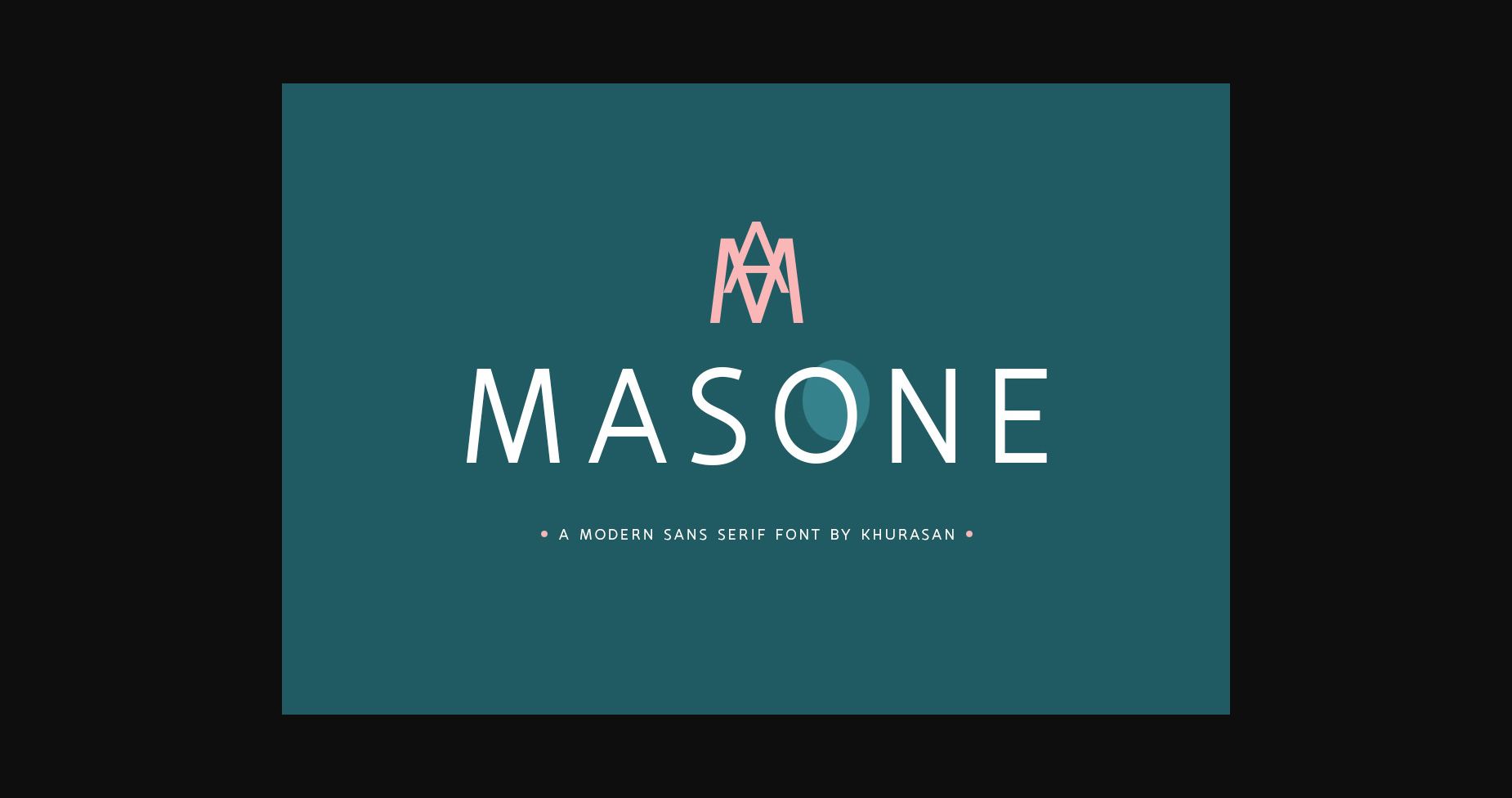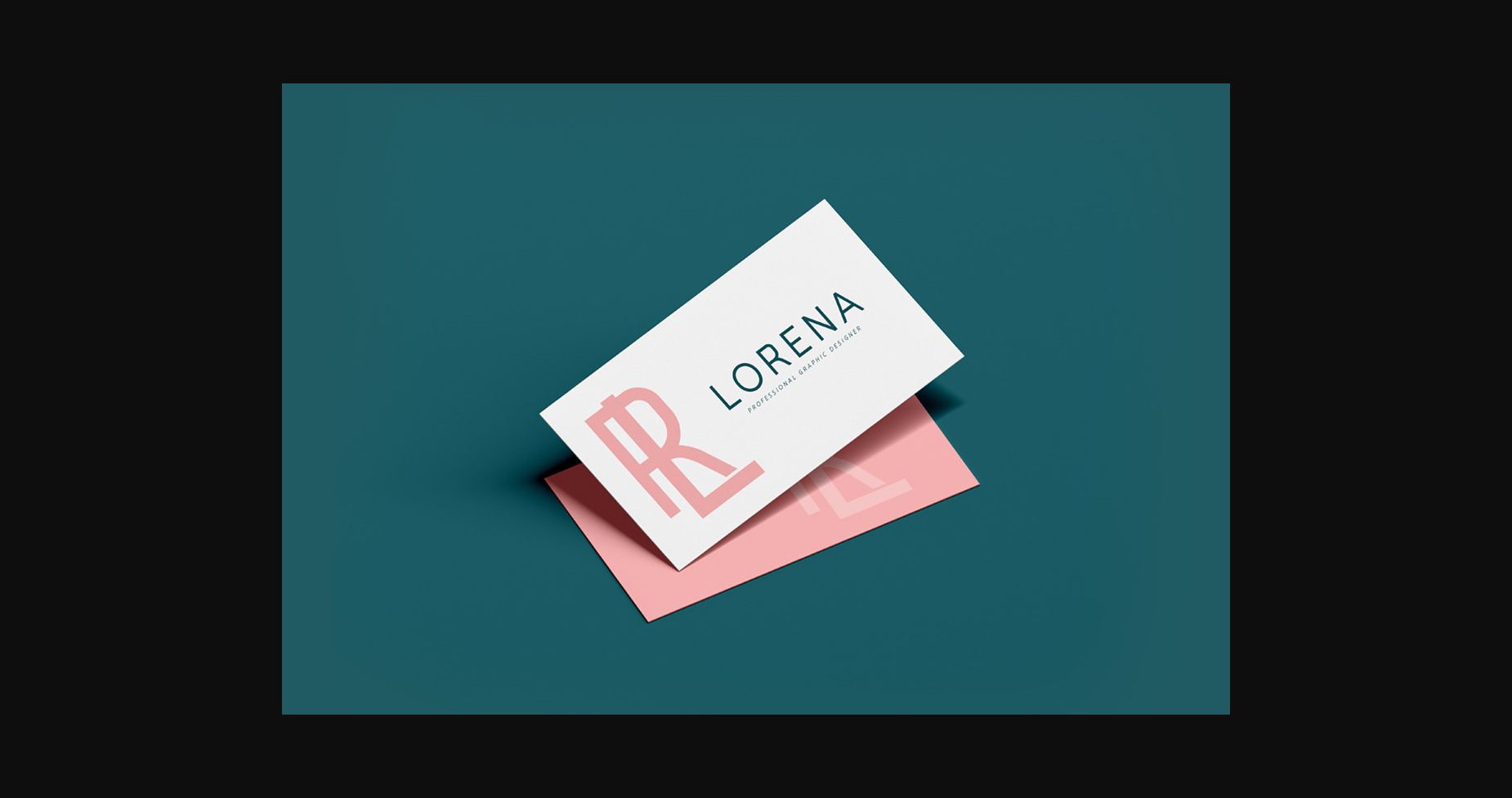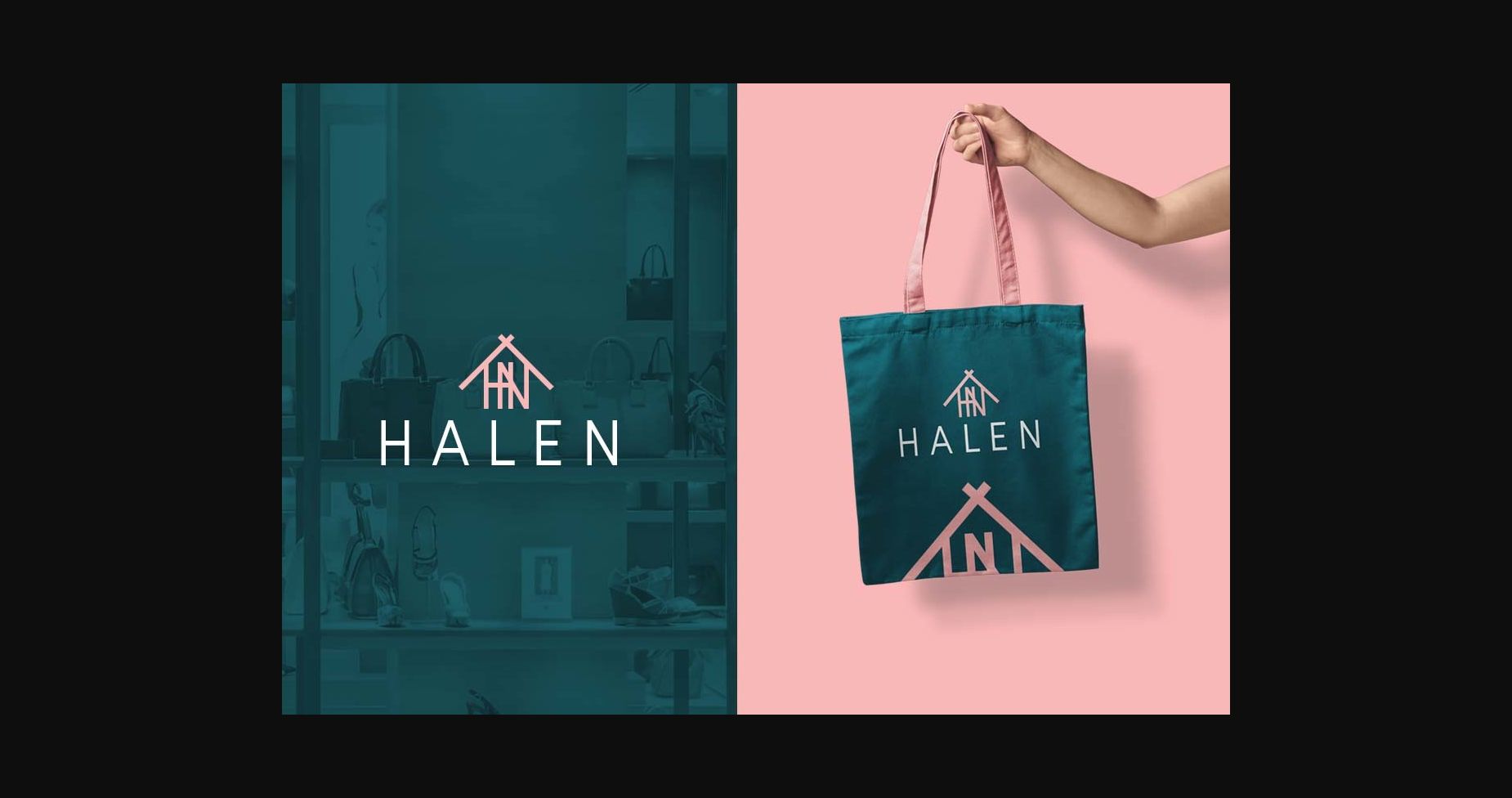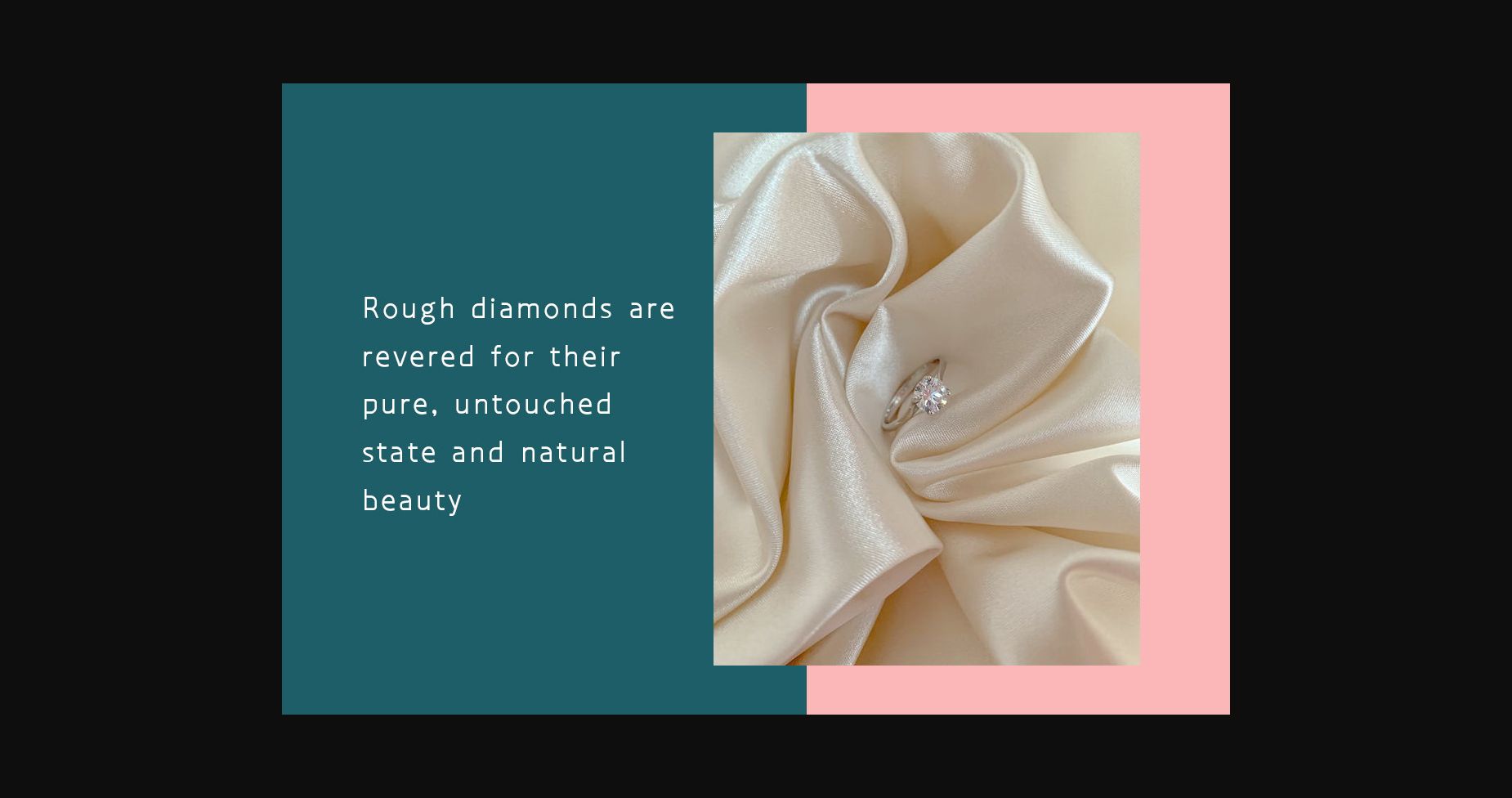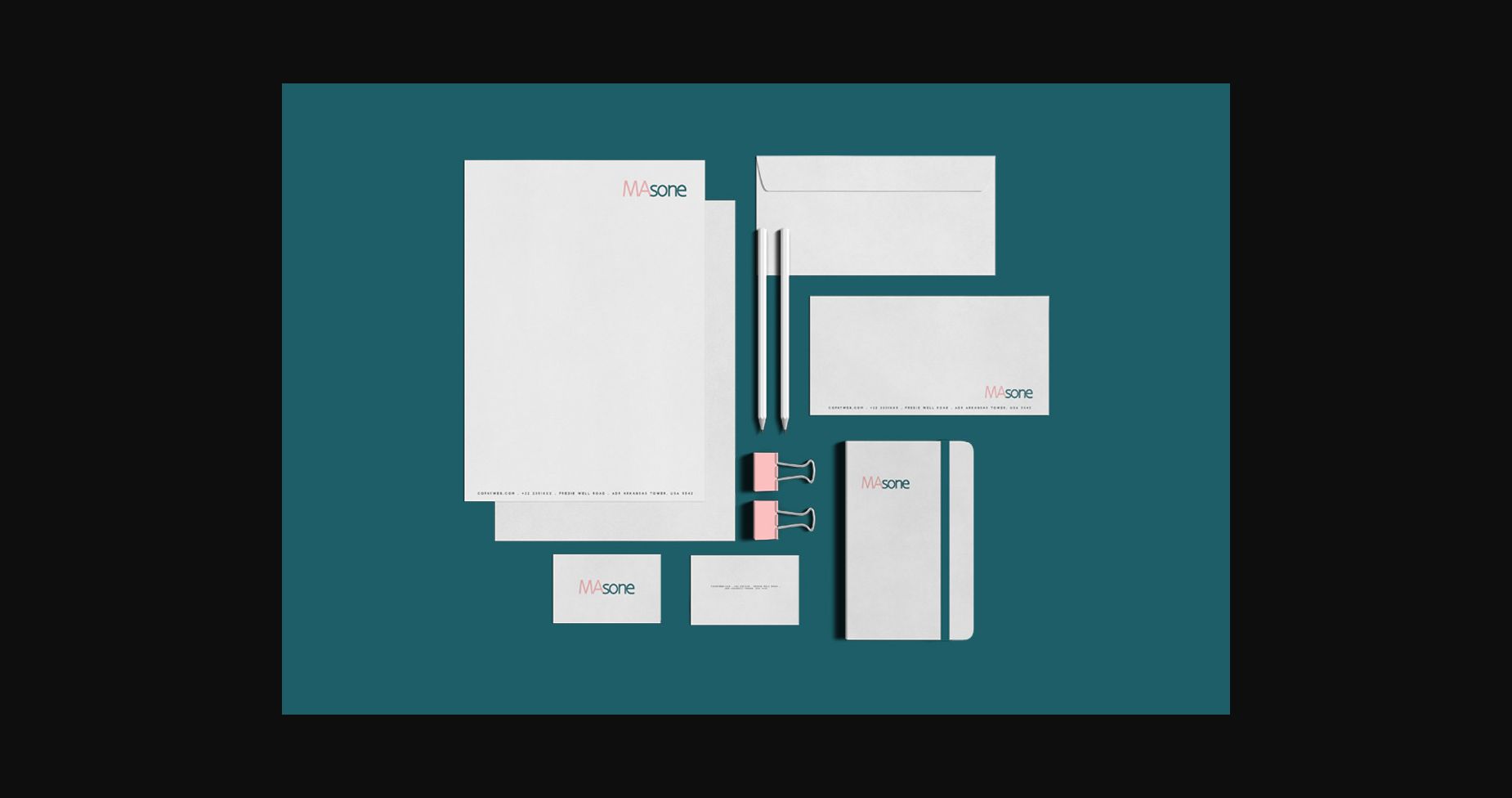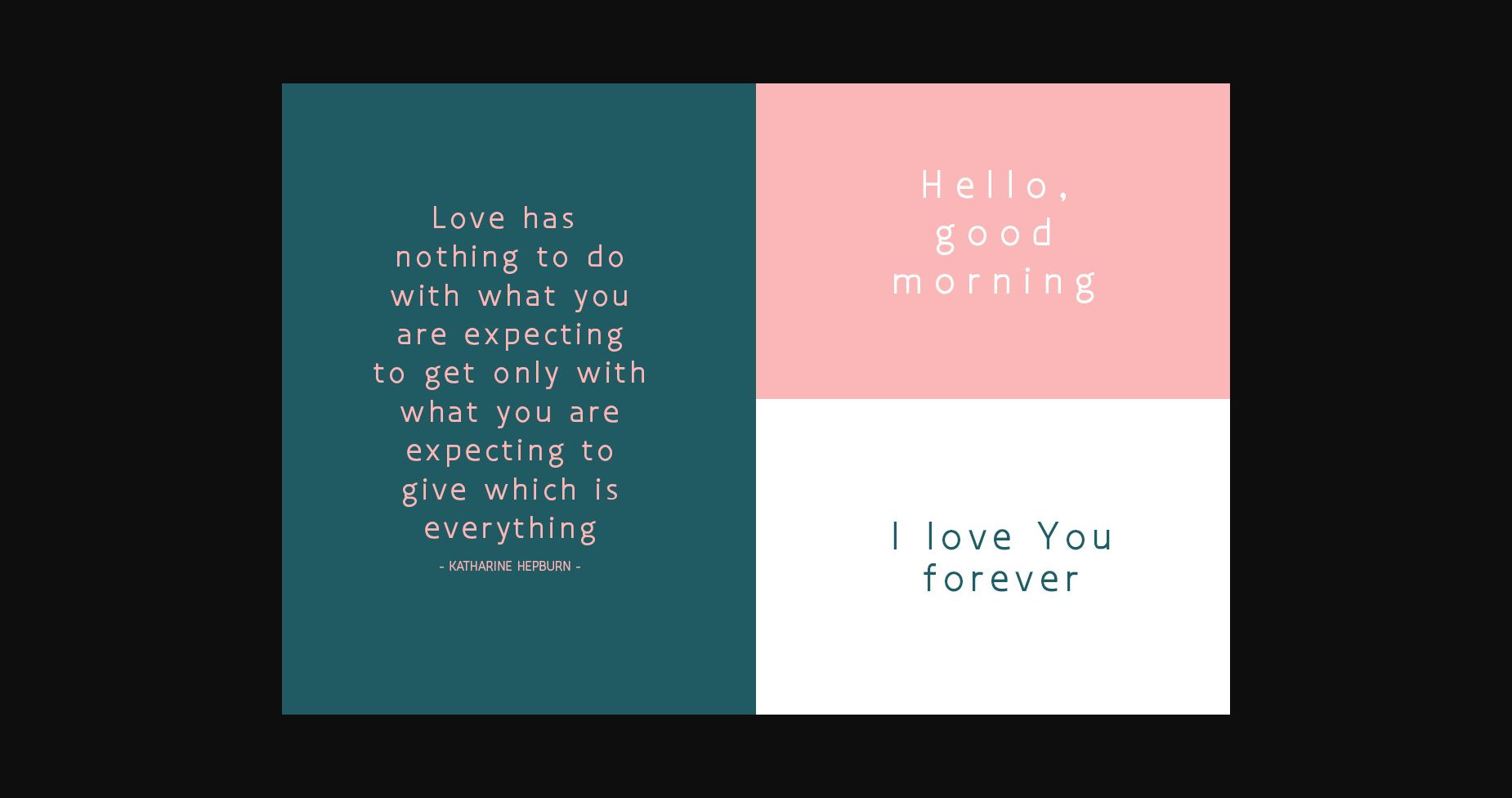
HomeSans Serif FontsMasone Font Sans Serif Fonts Masone Font FacebookXPinterestWhatsApp 1 of 9 ... Masone Font Poster 2... Masone Font Poster 3... Masone Font Poster 4... Masone Font Poster 5... Masone Font Poster 6... Masone Font Poster 7... Masone Font Poster 8... Masone Font Poster 9... About Masone Font Masone font is an elegant sans serif typeface for your great project. Masone font is suitable for logos, branding, greeting card, poster and any design that you create. DOWNLOAD NOW People also explored Vintage Hands Family Font Bahagia Font Okuland Font Baku Font Lavande Font Alaycia Minimalist Farmhouse Font Mertztown Hamida Lovely Font 314 0 TagsMasoneMasone Font Previous articleCaxo FontNext articleSerendipity Font LEAVE A REPLY Cancel reply Comment: Please enter your comment! Name:* Please enter your name here Email:* You have entered an incorrect email address! Please enter your email address here Website: Save my name, email, and website in this browser for the next time I comment. Personal Use Free Proudly Personal Use Free Read more about this font Moon Light Personal Use Free Read more about this font Anggiana Personal Use Free Read more about this font Archeology Personal Use Free Read more about this font BLOG How to Cut Any Font on Cricut: Convert a Font to SVG (Free) Turn any font into a clean SVG so it cuts crisp on Cricut - a quick 3-step workflow using a free font-to-SVG tool. Using Fonts in Digital Marketing: Tips to Strengthen Your Brand Identity Elegant Wedding Invitation Fonts – Handwritten & Script Fonts 5 Fonts That Will Dominate Design Trends in 2026